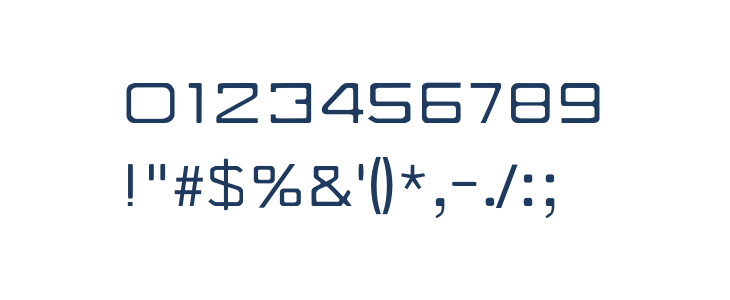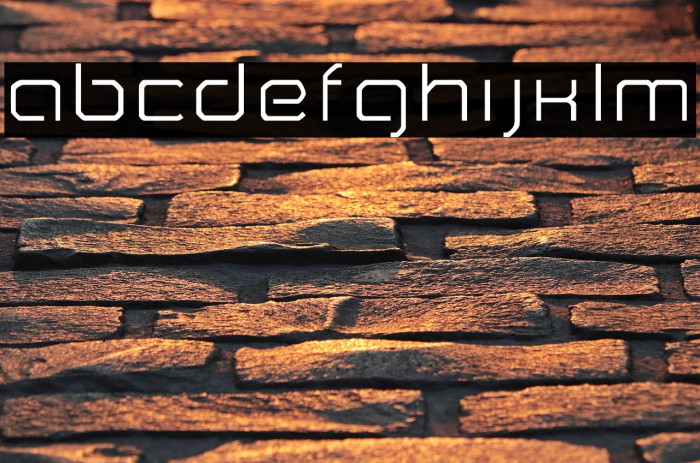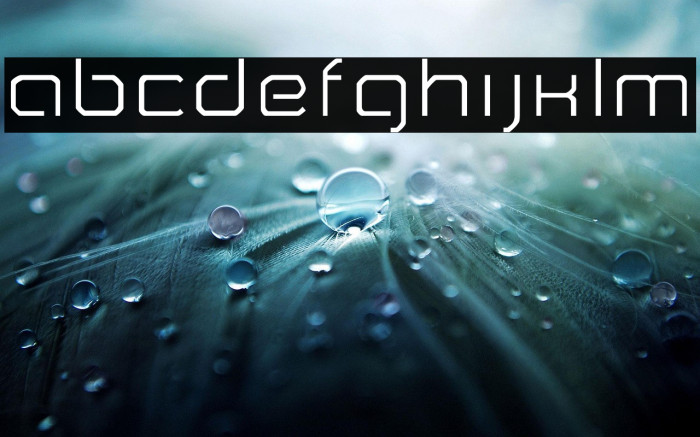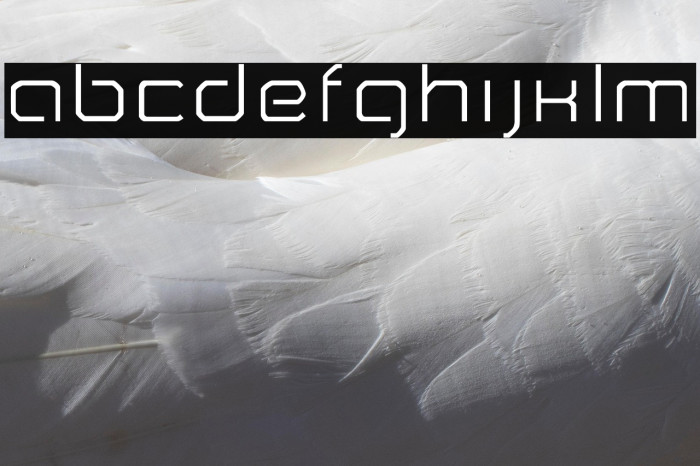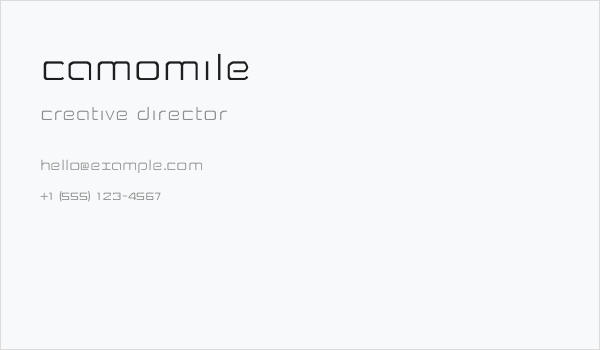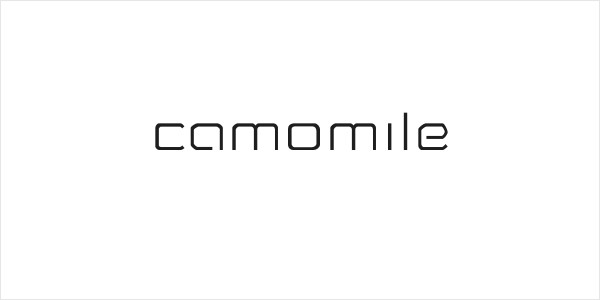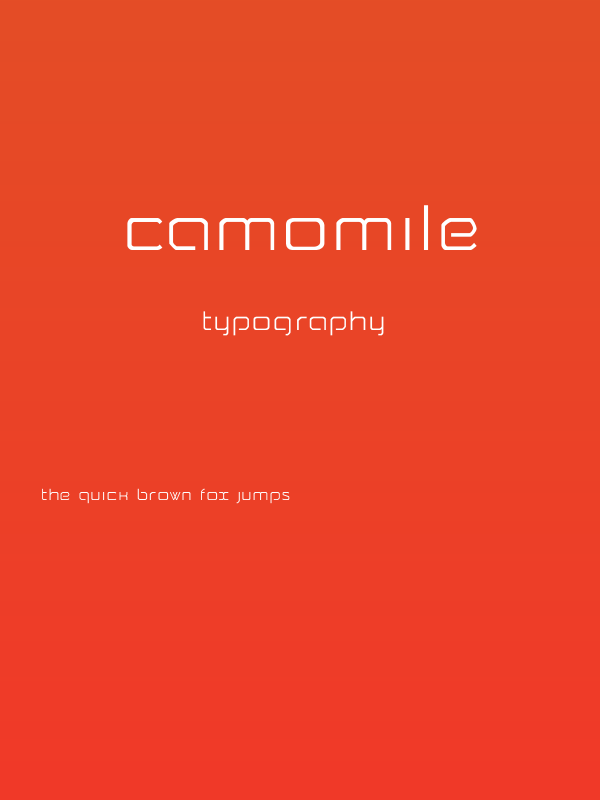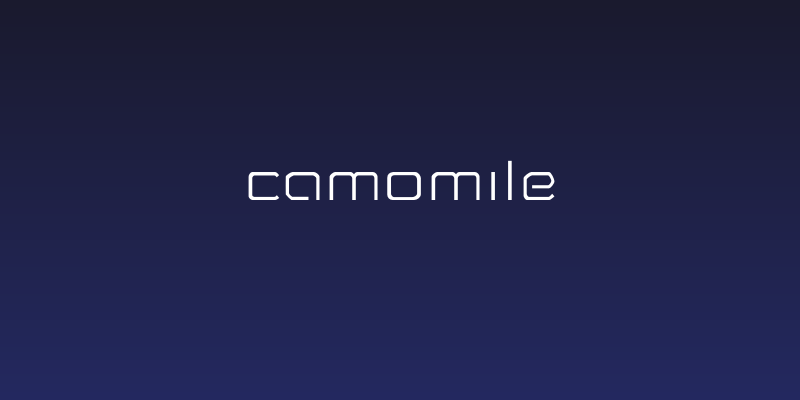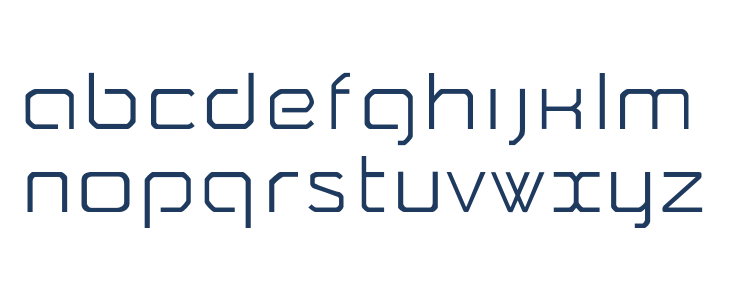
Camomile Font
Camomile Description
This font features a modern, geometric design with a clean and minimalist aesthetic. The characters are composed of straight lines and sharp angles, giving it a futuristic feel. The uppercase and lowercase letters maintain a consistent height, creating a uniform appearance. The numbers and special characters follow the same geometric style, ensuring cohesion across all elements. The font's simplicity and clarity make it highly legible, even at smaller sizes. Its unique design is suitable for projects that require a contemporary and sleek look, such as technology-related branding or modern editorial layouts.
| Proposed Projects | Ideal for technology branding, modern editorial layouts, and minimalist design projects. |